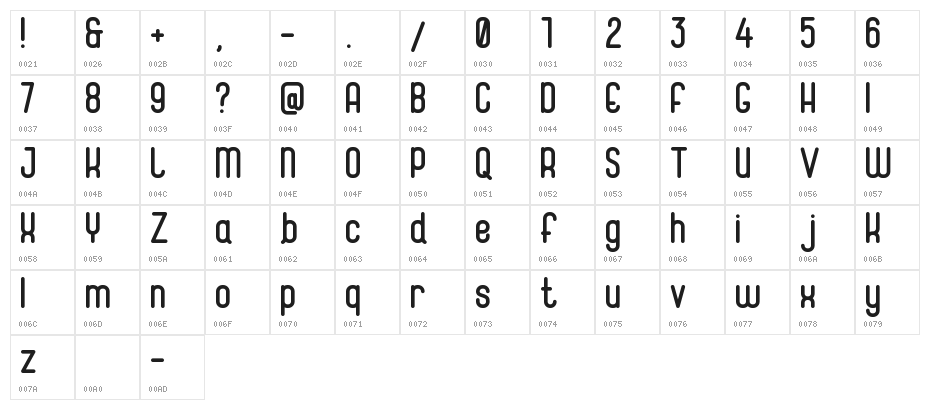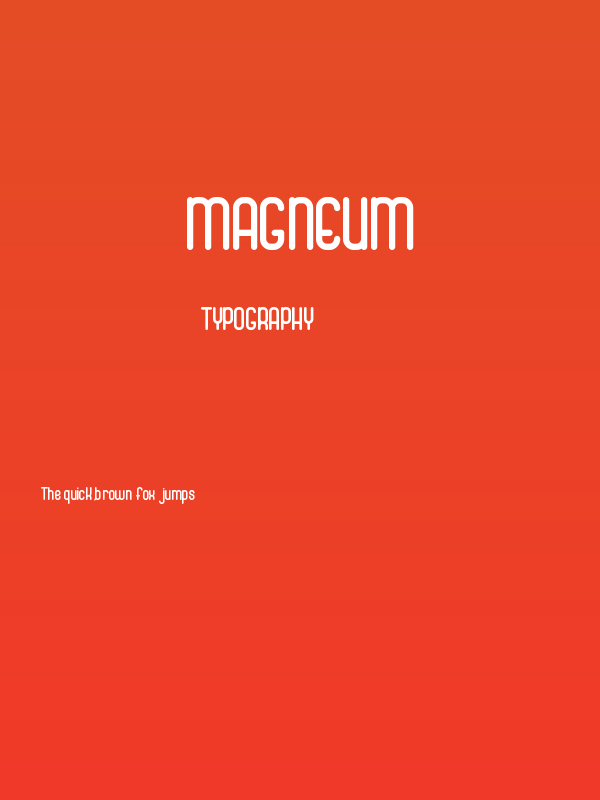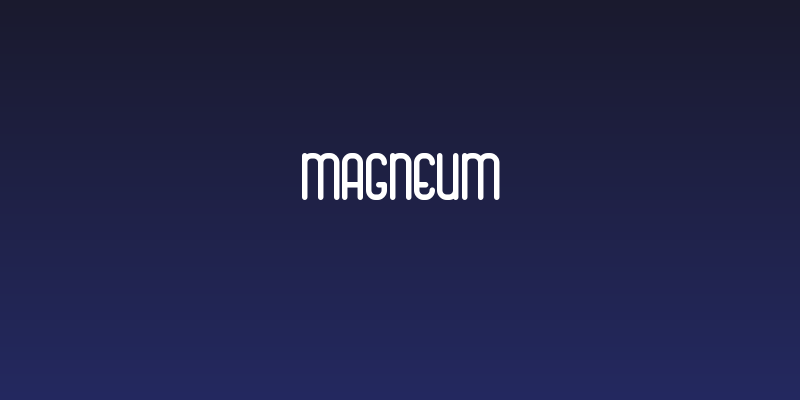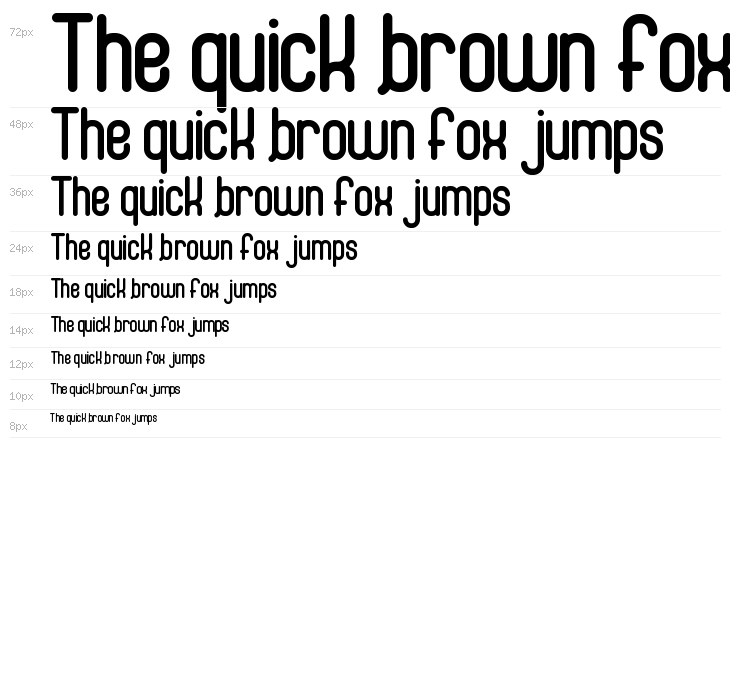
Magneum Font
Magneum Description
This font features a modern and clean design with rounded edges and uniform stroke widths, giving it a friendly and approachable appearance. The characters are well-proportioned, with a consistent height and width that ensures readability. The uppercase and lowercase letters maintain a cohesive style, while the numerals and special characters are designed to match the overall aesthetic. The font's simplicity and clarity make it versatile for various design applications, from digital to print media.